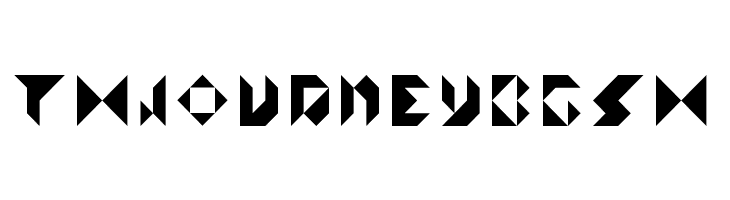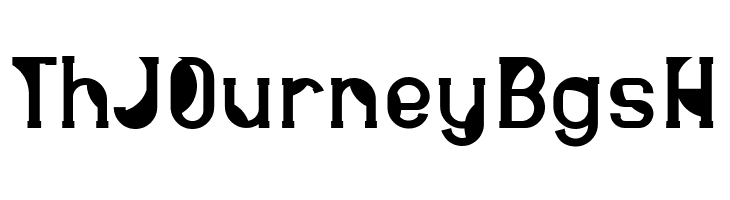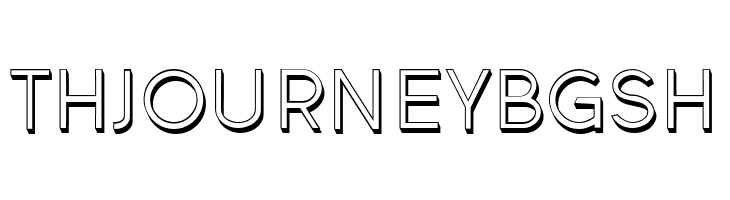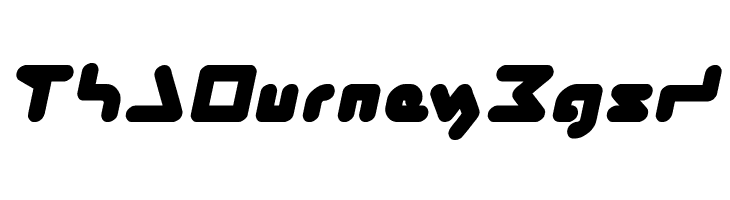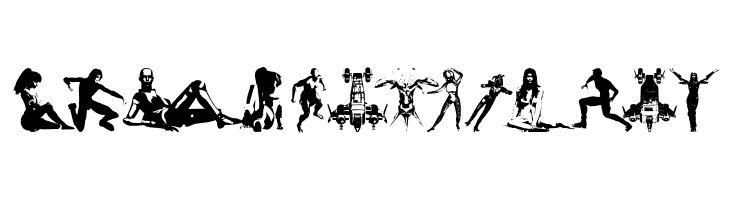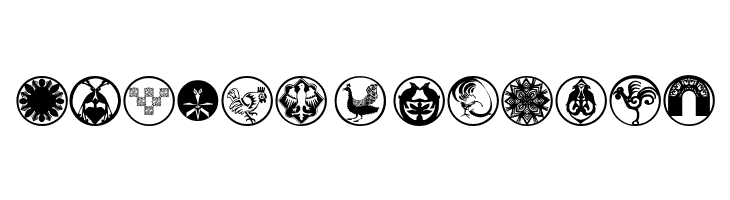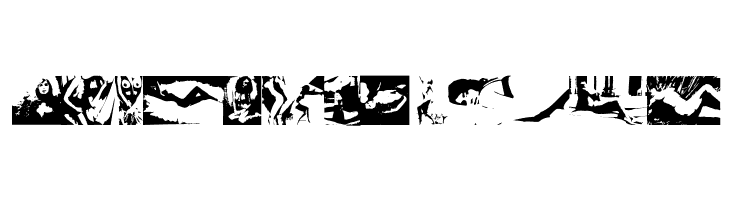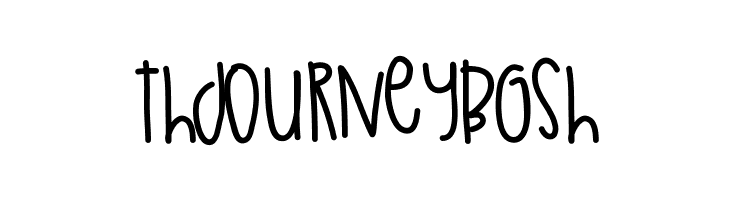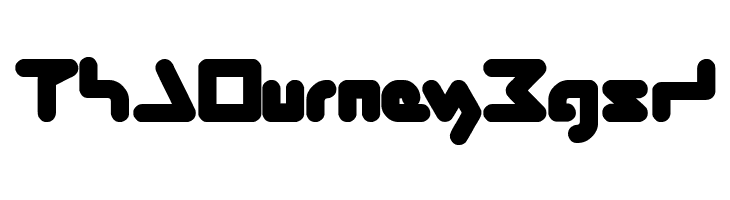
• AbstractFragments
Abstract, fragmented silhouettes form each character in a bold, decorative style.
• Abstractions
Abstract, collage-style font with high visual complexity.
• AbstractOrnamentBatsTwo
Ornamental dingbat set featuring abstract and decorative motifs.
• AbstractThing
A playful, hand-drawn font with tall, narrow letters and a whimsical style.
• AbstractToConcrete
Abstract, illustrative font with playful, hand-drawn and geometric glyphs.
• Abstractus
• abstrak
A bold, geometric font with a modern and decorative style.
• Abstraktes Regular
A modern, geometric font with a shadowed, three-dimensional effect.
• ABSTRASCTIK
A bold, futuristic font with geometric shapes and rounded edges.
• ABSTRASCTIK Italic
A bold, geometric, and abstract font with a futuristic, italicized style.